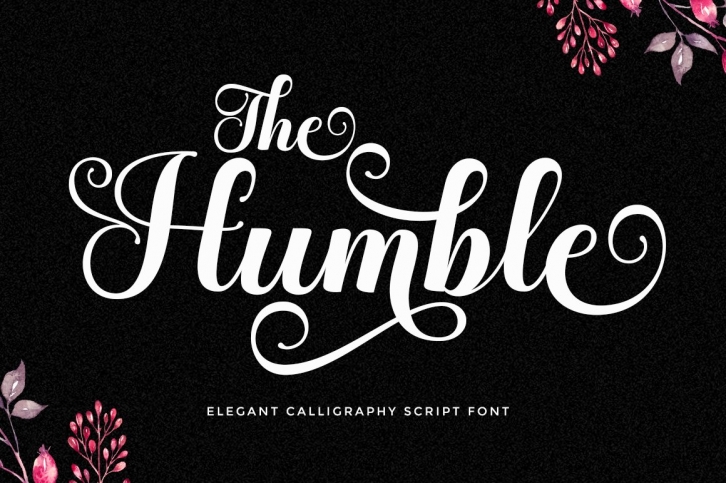
The Humble Script is a gorgeous font that was realeased on February 3, 2021. The font can be used in many style contexts and design environments. Perfect for invitations, magazines, websites, logos, and more! It was designed by Letter Fresh and the file size is 15.41 MB. Thanks for checking out this font!